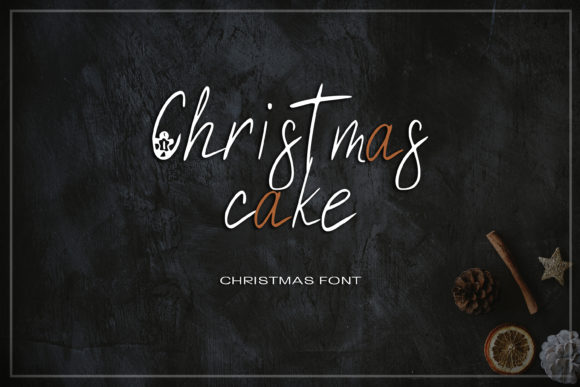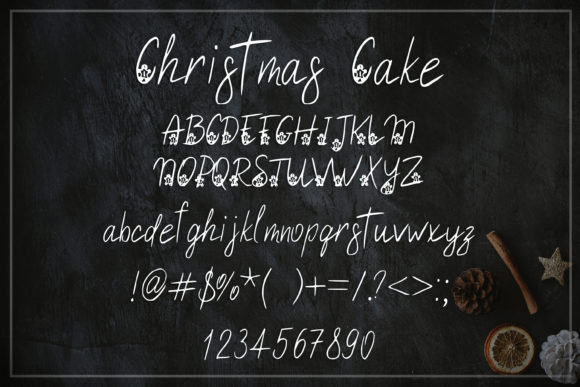
Christmas Cake Font
About Christmas Cake Font
Christmas Cake is a flowing handwritten font. This sweet font will look beautiful on a variety of design ideas. It will add a joyful and romantic touch to each of your projects!